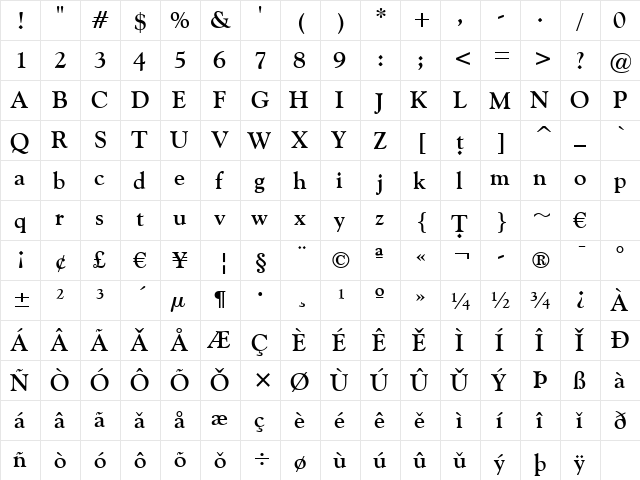
VANIEL 2 Bold
Design Context for VANIEL 2 Typeface
VANIEL 2 is a composed and adaptable typeface that performs quietly and consistently across a wide range of design contexts. Its bold stroke weight gives it real presence on the page.
Pro Tip: Use VANIEL 2 in both headline and body roles to test its range before committing to a single application.